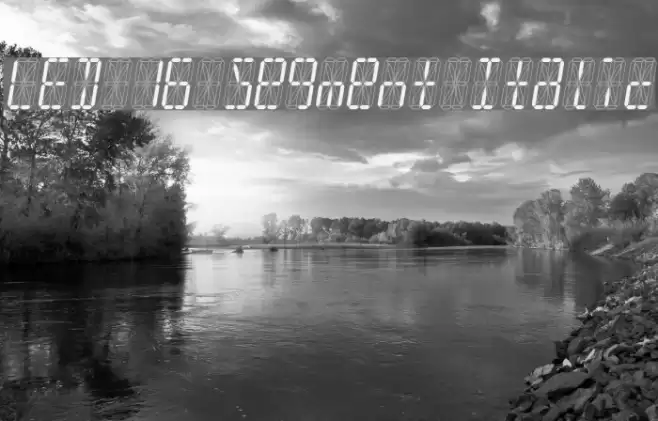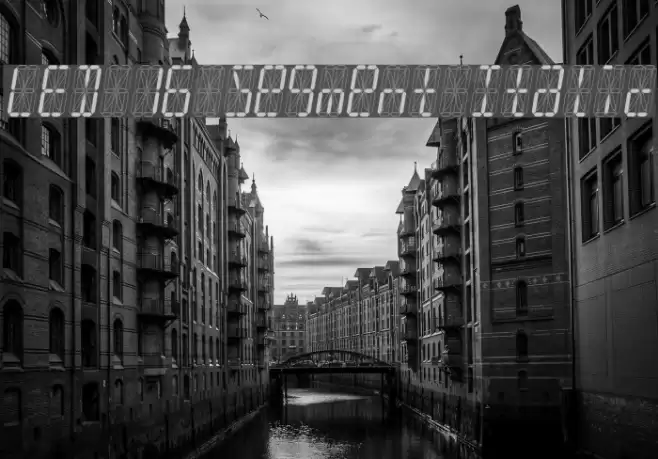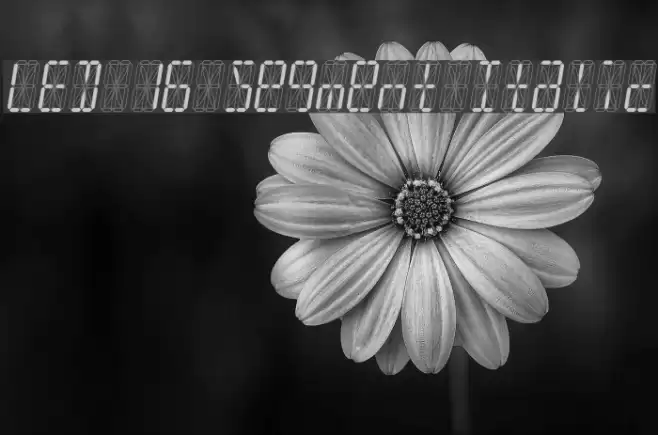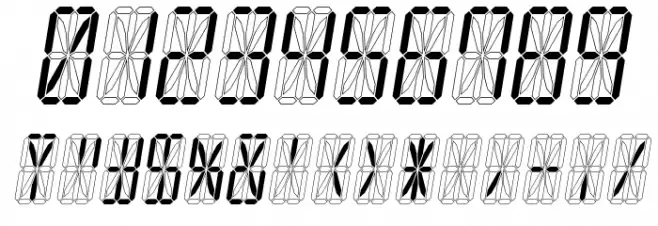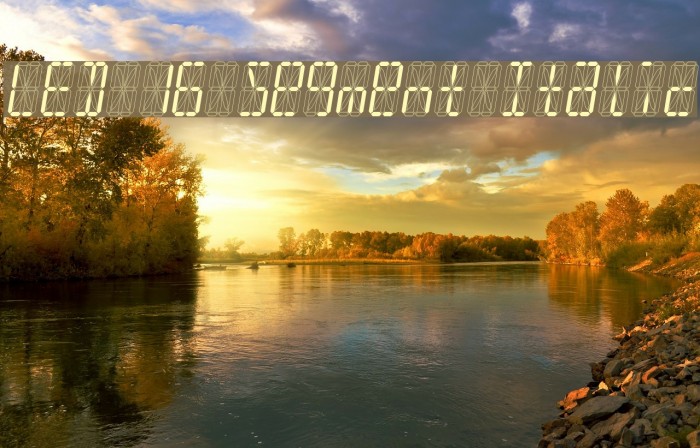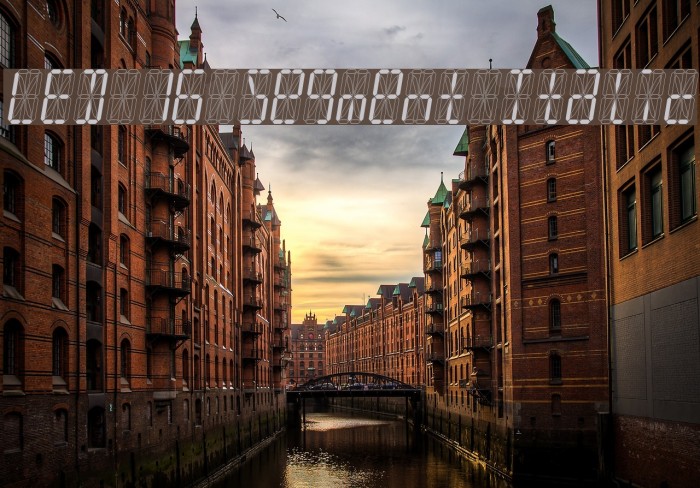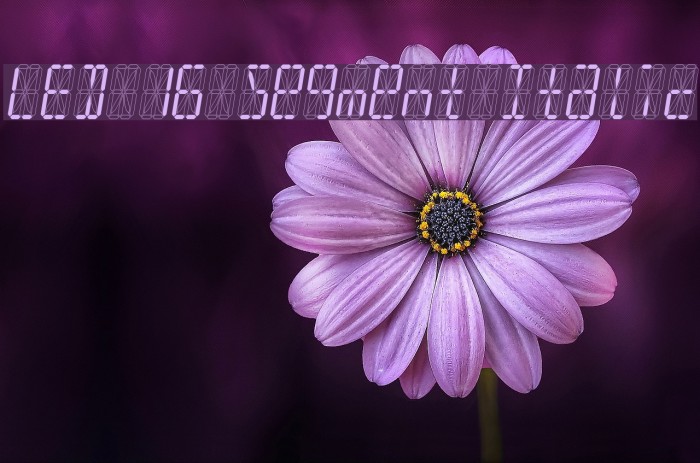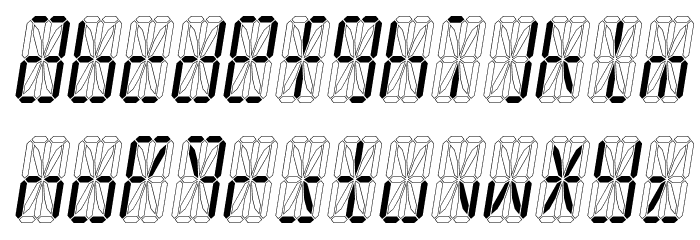
LED 16 Segment Italic Font
LED 16 Segment Italic Description
This font is a digital-inspired typeface that mimics the appearance of a 16-segment LED display. Each character is composed of distinct segments that form letters and numbers, giving it a futuristic and technical look. The italic style adds a dynamic and forward-leaning aspect, enhancing its modern appeal. The font is highly legible, with clear separation between segments, making it suitable for digital displays and interfaces. Its unique design is both functional and visually striking, ideal for projects that require a technological or digital theme.
A digital-inspired, 16-segment LED display font with an italic style from Uncategorized fonts.
- Proposed Projects: Ideal for digital interfaces, tech-themed posters, electronic device displays, and futuristic branding.
- Use Case: Headlines, Digital displays, Tech interfaces